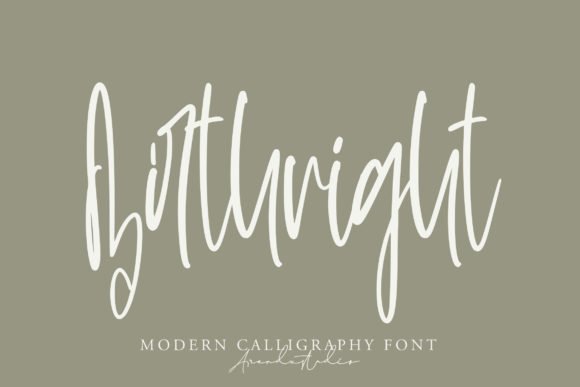
Introduction to Birthright Font
Birthright is a cool, casual and asymmetrical handwritten font.
Relaxed and unique, this font will easily fit a wide range of creative ideas .
Key Features of Birthright Font
Why Choose Birthright Font?